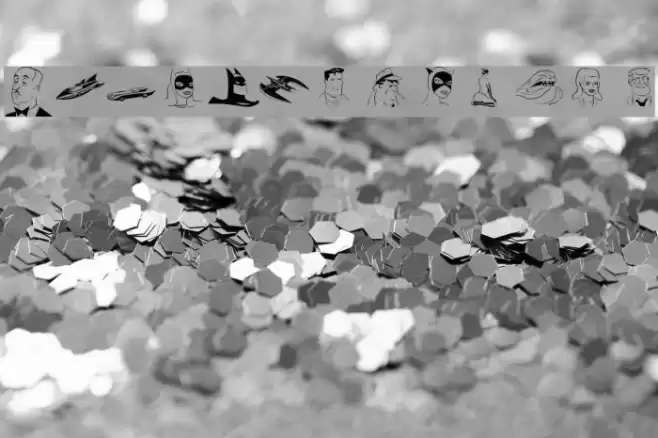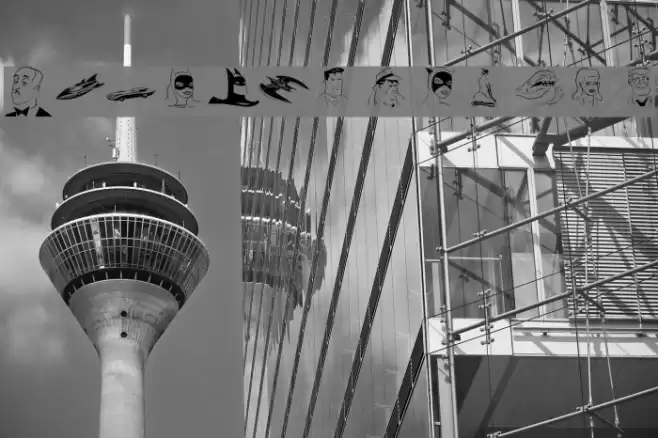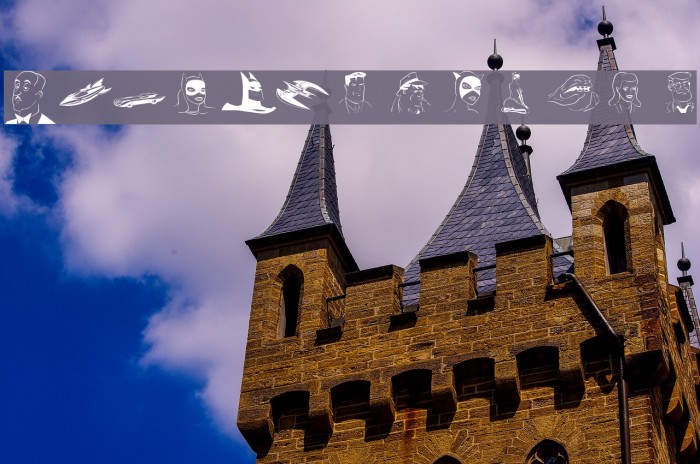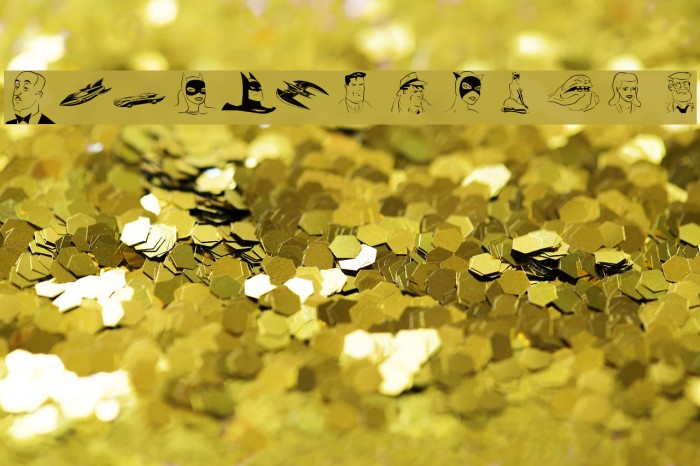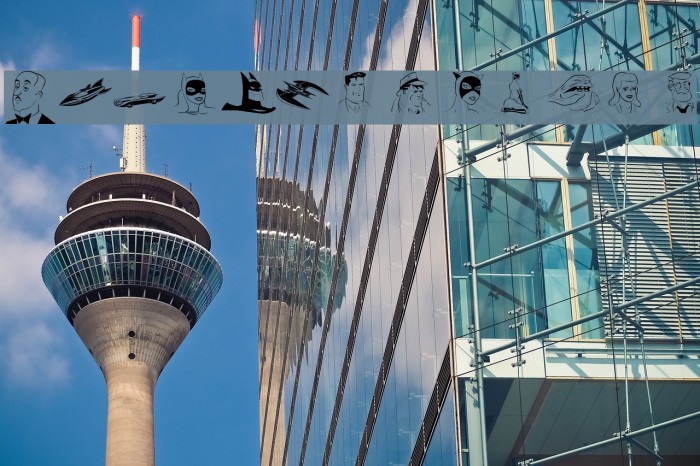
BatMan Font
BatMan Description
A decorative display font featuring illustrated character glyphs inspired by comic book art, with each letter represented by a unique cartoon-style portrait or object. The font is highly stylized and not suitable for traditional text, focusing on visual storytelling through individual glyphs.
Comic-inspired decorative font with illustrated character glyphs from Images & Symbols fonts.
- Proposed Projects: Posters, comic book covers, themed party invitations, fan art, novelty merchandise.
- Overall Style: Decorative, Comic, Thematic
- Use Case: Logos, Posters, Themed Graphics